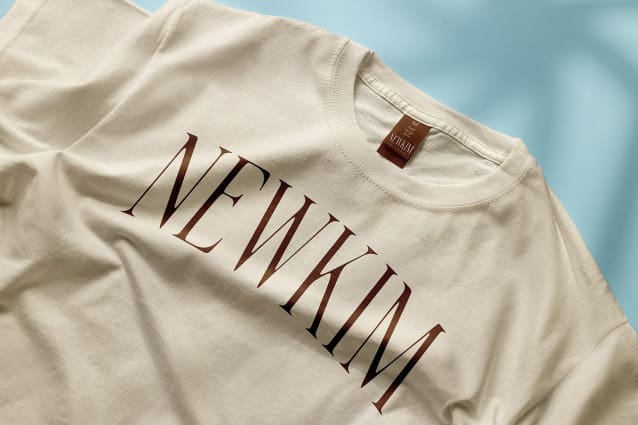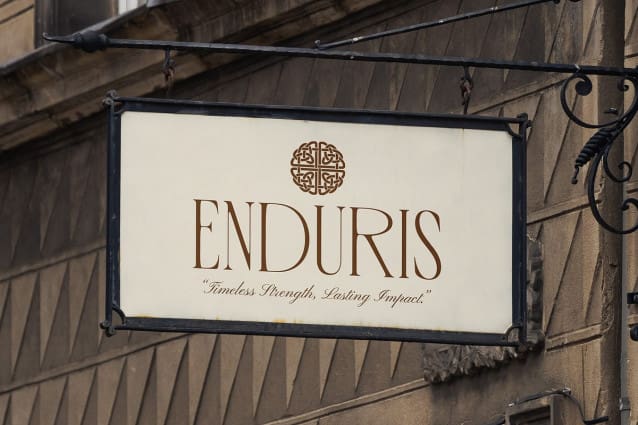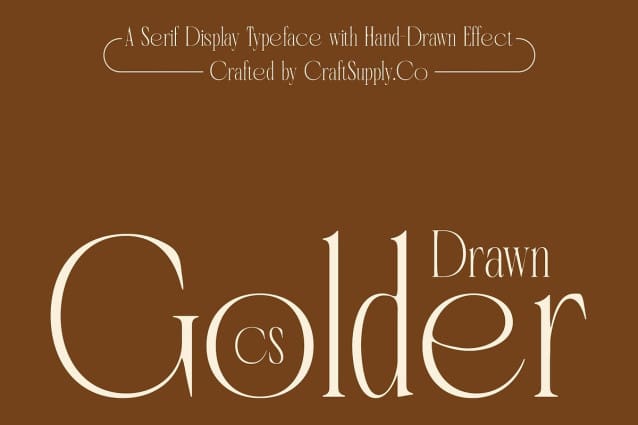
CS Golder Drawn Font
CS Golder Drawn Font is a modern condensed serif font that seamlessly combines sleek design with sophisticated, refined elements. Its unique condensed shape allows for a narrower appearance, optimizing space efficiency while ensuring that readability remains uncompromised. This thoughtful design makes it an ideal choice for both minimalistic layouts and more complex compositions, providing a clean and polished look that elevates any text.
Artistic Handcrafted Touch The drawn effect imbues this font with a personal and artistic flair, creating the illusion that each letter is meticulously crafted by hand. This feature not only adds warmth and individuality but also enhances the overall character of the font. The careful attention to detail in each letterform brings a unique charm that captures the eye, making it perfect for designs that seek to stand out while retaining elegance.
Versatility for Diverse Applications With its clean lines and balanced proportions, this drawn font is remarkably versatile, suitable for a wide range of applications. Whether you’re creating elegant branding for a high-end product, designing formal print materials, or crafting engaging digital content, this font adapts beautifully to any context. Its modern yet classic aesthetic makes it perfect for everything from sophisticated logos and business cards to invitations and event collateral.